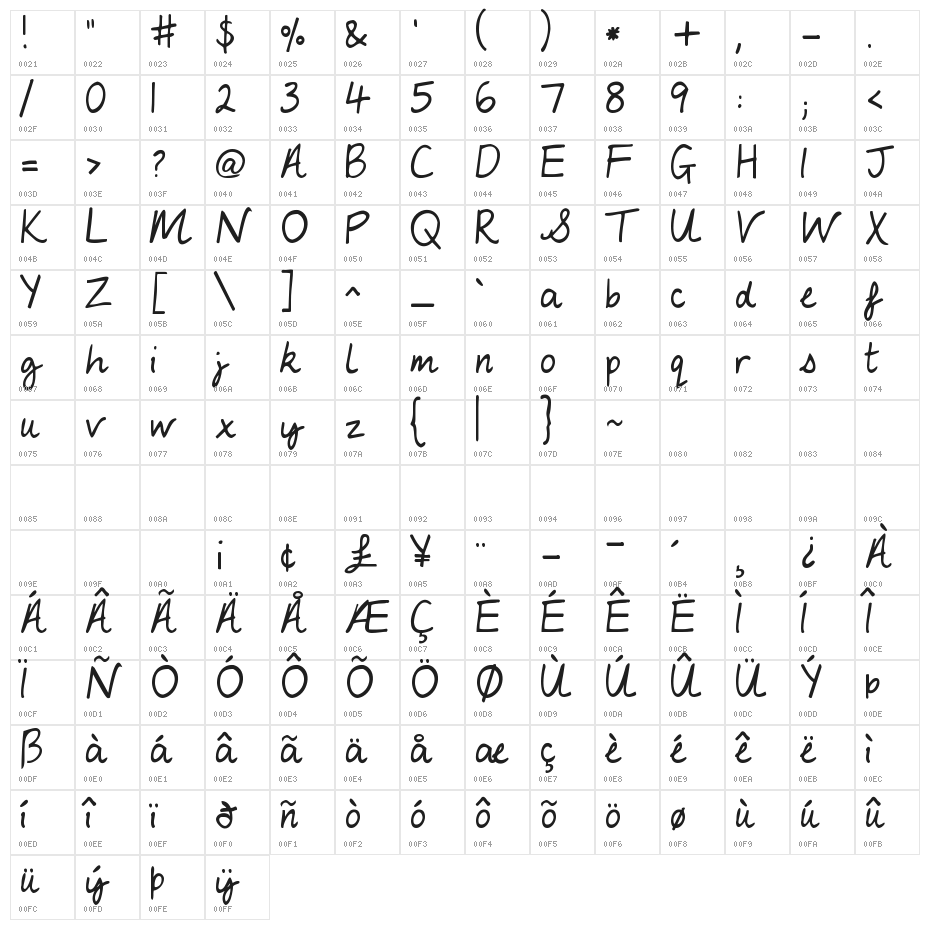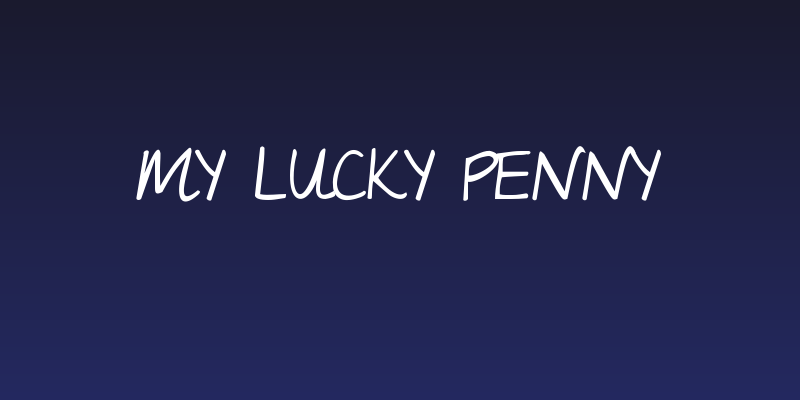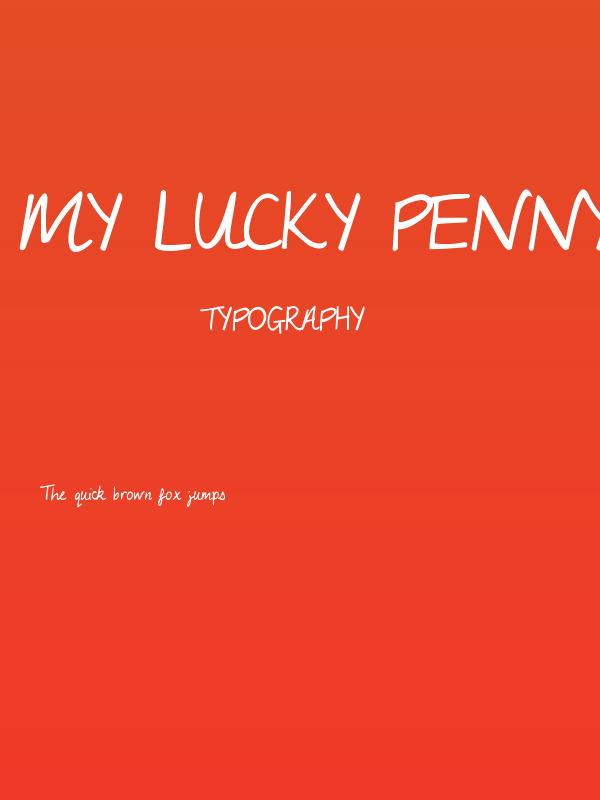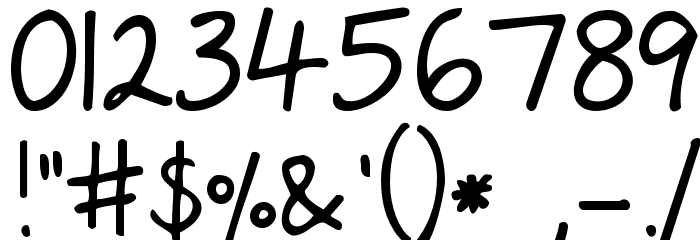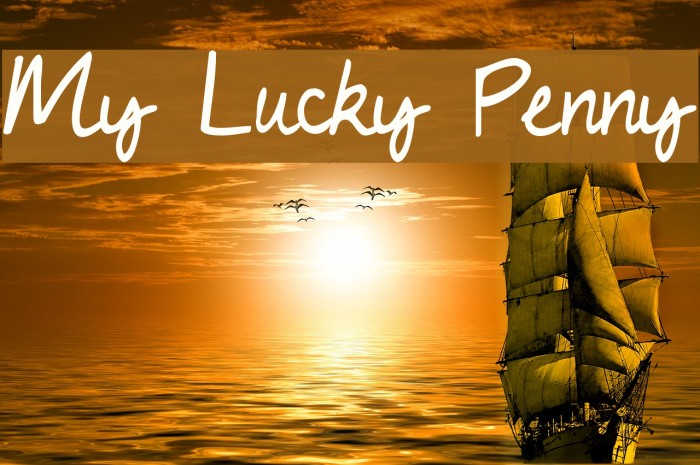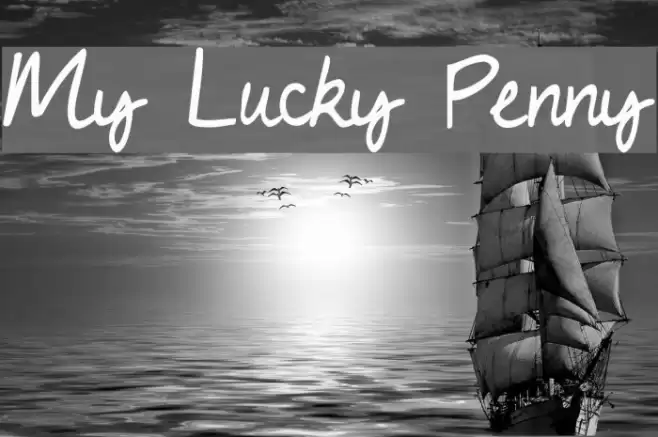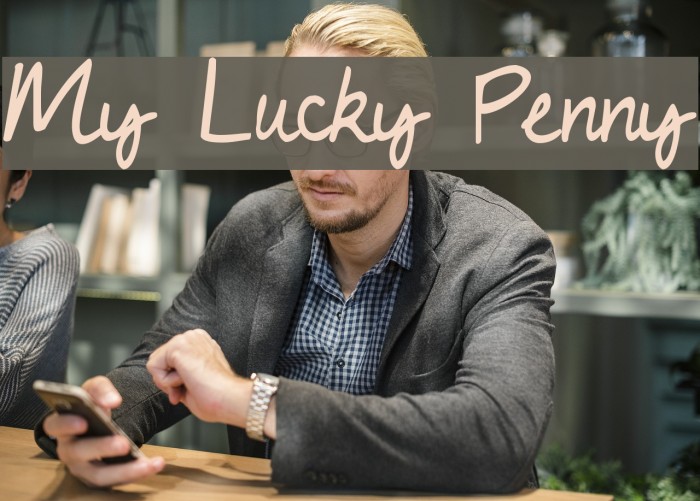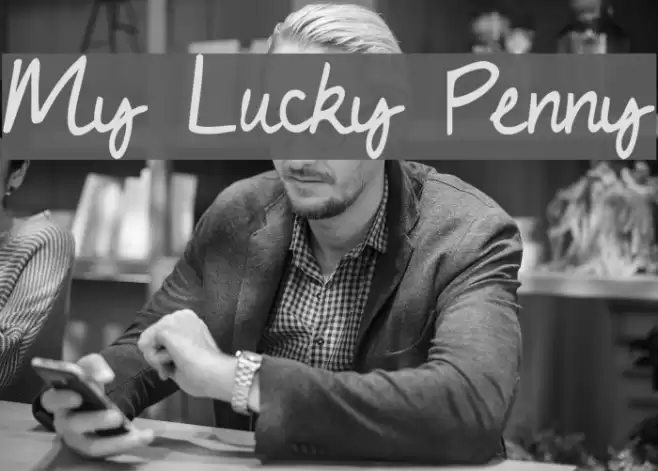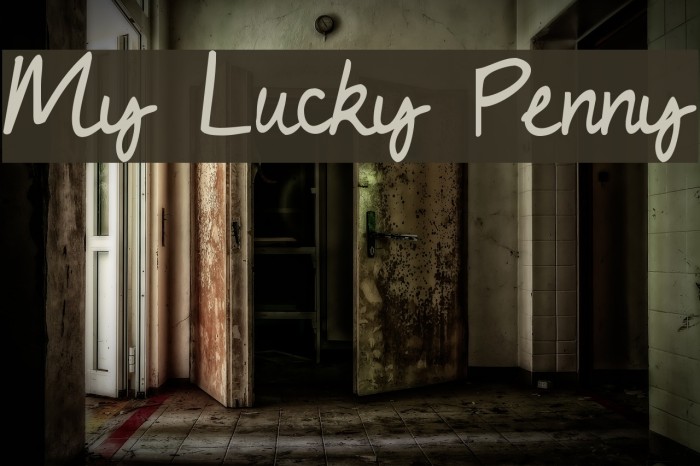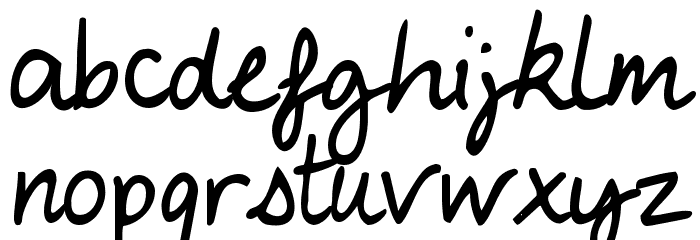
My Lucky Penny Font
My Lucky Penny Description
This font exudes a playful and casual handwritten style, characterized by its smooth, flowing curves and slightly irregular letterforms. The uppercase letters maintain a consistent height, while the lowercase letters exhibit a charming, informal touch with varied ascenders and descenders. The numerals are clear and easy to read, complementing the overall whimsical aesthetic. Special characters are thoughtfully designed to match the font's lively personality. This font is perfect for projects that require a personal, friendly touch, such as greeting cards, invitations, or playful branding.
| Overall Style | Casual, Playful |
| Use Case | Logos, Headlines, Informal Text |
| Proposed Projects | Ideal for greeting cards, invitations, playful branding, and personal projects. |